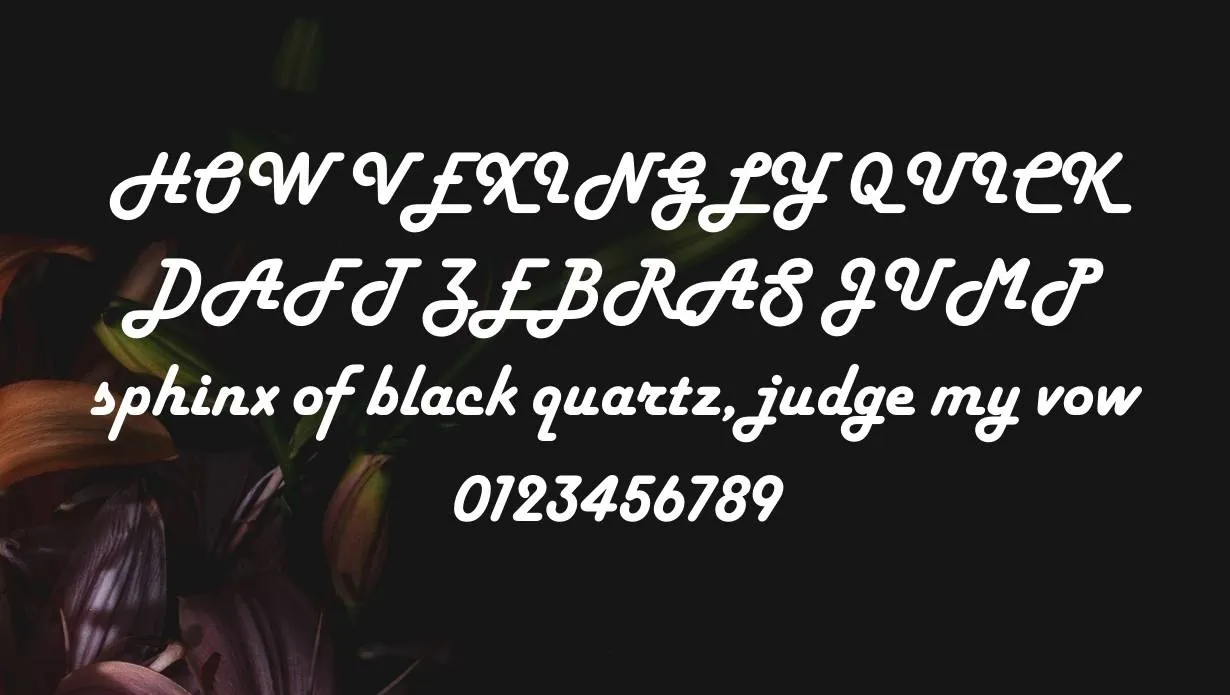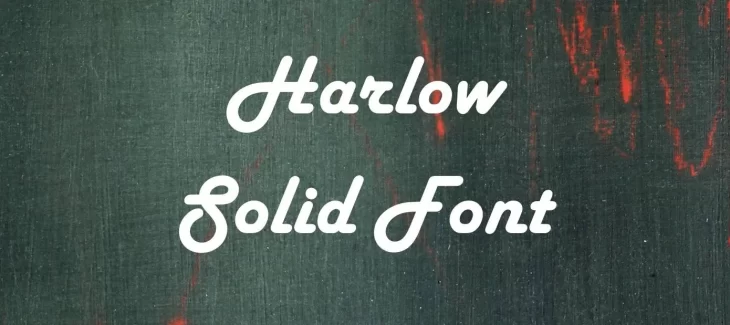
Harlow solid Font is a unique font that was created in the early 1990s. It is known for its unusual and interesting shapes. This Font was created by designer Colin Brignall. The texture of this font is very different from other fonts.
The font was made to be inspired by an antique script font lettering. If you are looking for a unique font, Phenomena Font is a great choice. It is sure to add personality to any project. This google typeface you can also easily download from this website in TTF file format.
The Harlow solid Font family includes only one regular weight. And also this font includes Latin, Greek, and Cyrillic character sets, and supports over 90 languages. If you want to compare this typeface style with tiki hut font then it would be the best combination for you.
Who Used Harlow Solid Font?
Harlow solid textured style is also commonly used in branding and advertising. If you are looking for a modern and stylish font for your next project, then this font is best for you. The glyphs of this font are perfect for creating unique and attention-grabbing designs.
You can also use this font on websites and other digital products. The font is perfect for headlines, logos, and other display purposes. Many designers like to use this Font.
Harlow Solid Font Family Appearance
| Name | Harlow solid Font |
| Designer | Colin Brignall |
| Style | Fancy |
Why is Harlow Solid the best typeface?
Yes, many designers and artists consider this to be a great font because of its unique design and tall, bold letters.
Can I use Harlow Solid in a logo?
Yes, you can use Harlow solid in a logo. This font has a very stylish texture and letter that will look great in a logo.